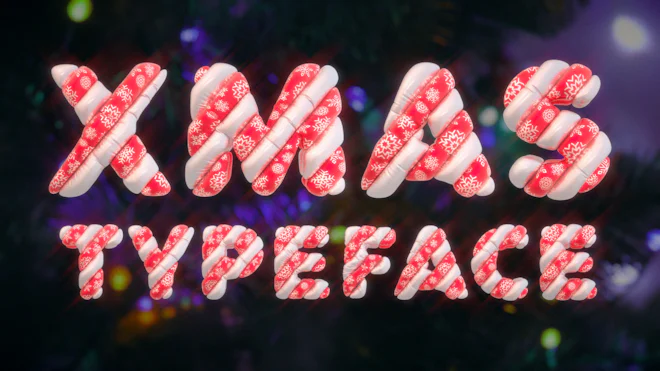
This stock motion graphics video pack includes 55 different clips of striped balloon Christmas letters, numbers, and symbols on a transparent alpha channel.